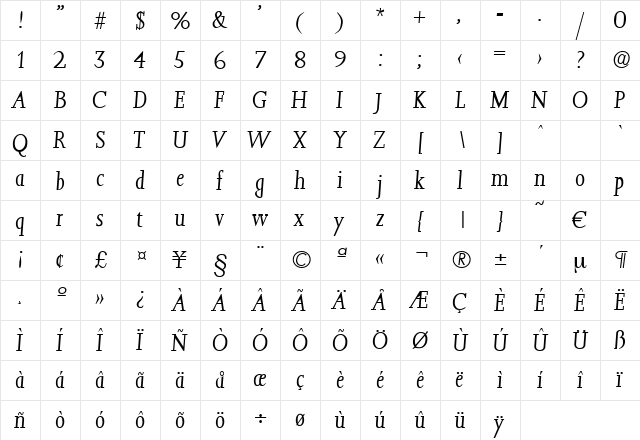
Jessica-LightIta Regular
Design Context for Jessica-LightIta Typeface
Jessica-LightIta offers clean, dependable letterforms without strong stylistic allegiance, making it a practical choice for designers who need flexibility. Its slender proportions lend an understated elegance to any composition.